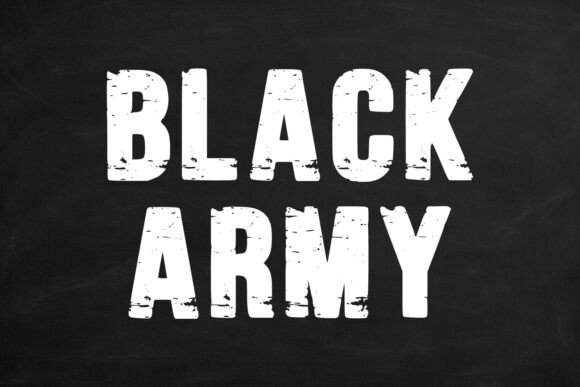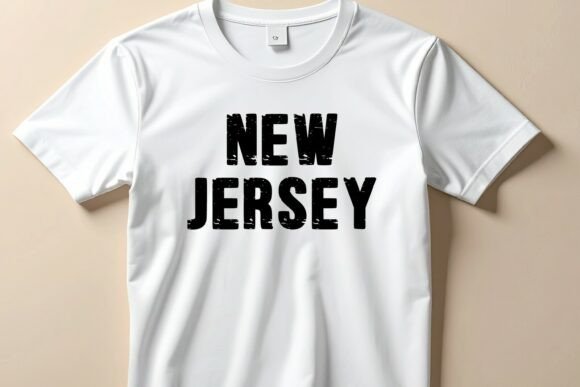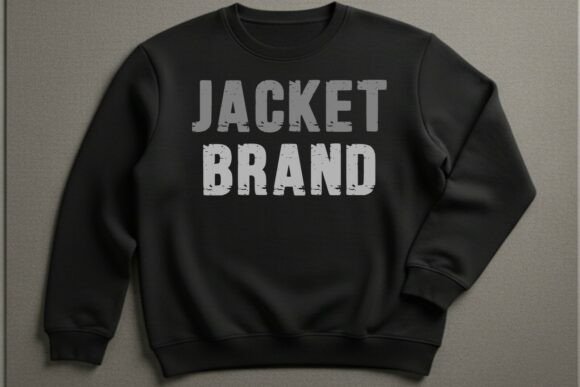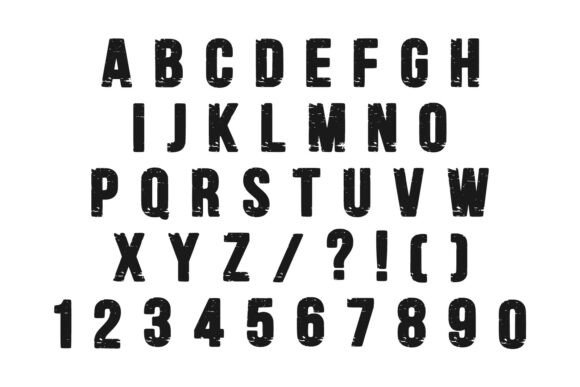
Introduction to Impact Grunge Font
Impact Grunge is a bold and powerful display font featuring a rugged distressed texture that gives it a raw and vintage character.
The strong, solid letterforms combined with worn grunge details create a striking visual style that instantly grabs attention This font is perfect for posters, branding, logos, apparel designs, streetwear graphics, packaging, signage, and bold headline typography.